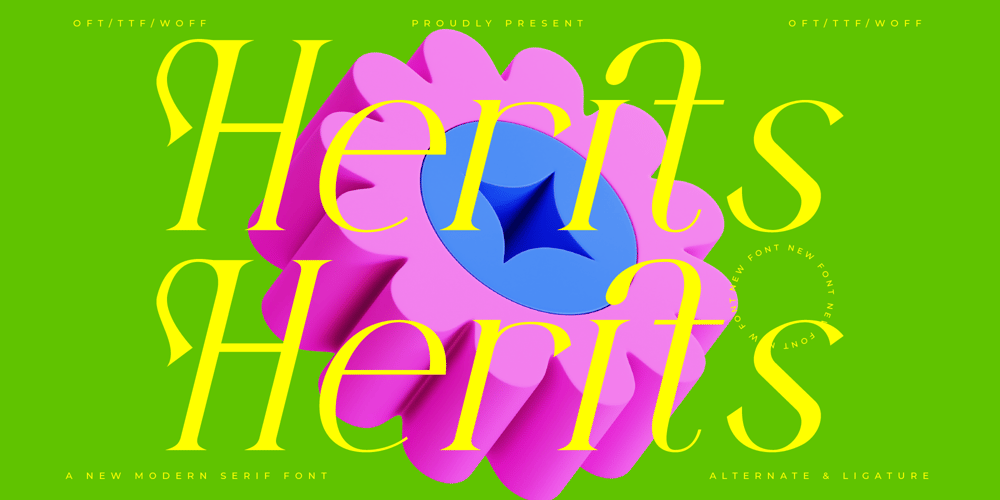
Herits
Herits font
Herits Font Family was designed by Shiddiq Roihan and published by Amorfa Type. Herits contains 2 styles and family package options. Herits Modern Serif FontHerits Modern is a sleek and elegant serif font that combines contemporary design with a touch of classic sophistication. With its clean lines, geometric forms, and refined serifs, this font delivers a bold yet approachable style, perfect for high-end branding, editorial design, and premium print materials. Its balanced structure ensures excellent legibility, while the carefully designed alternates add versatility for any creative project.